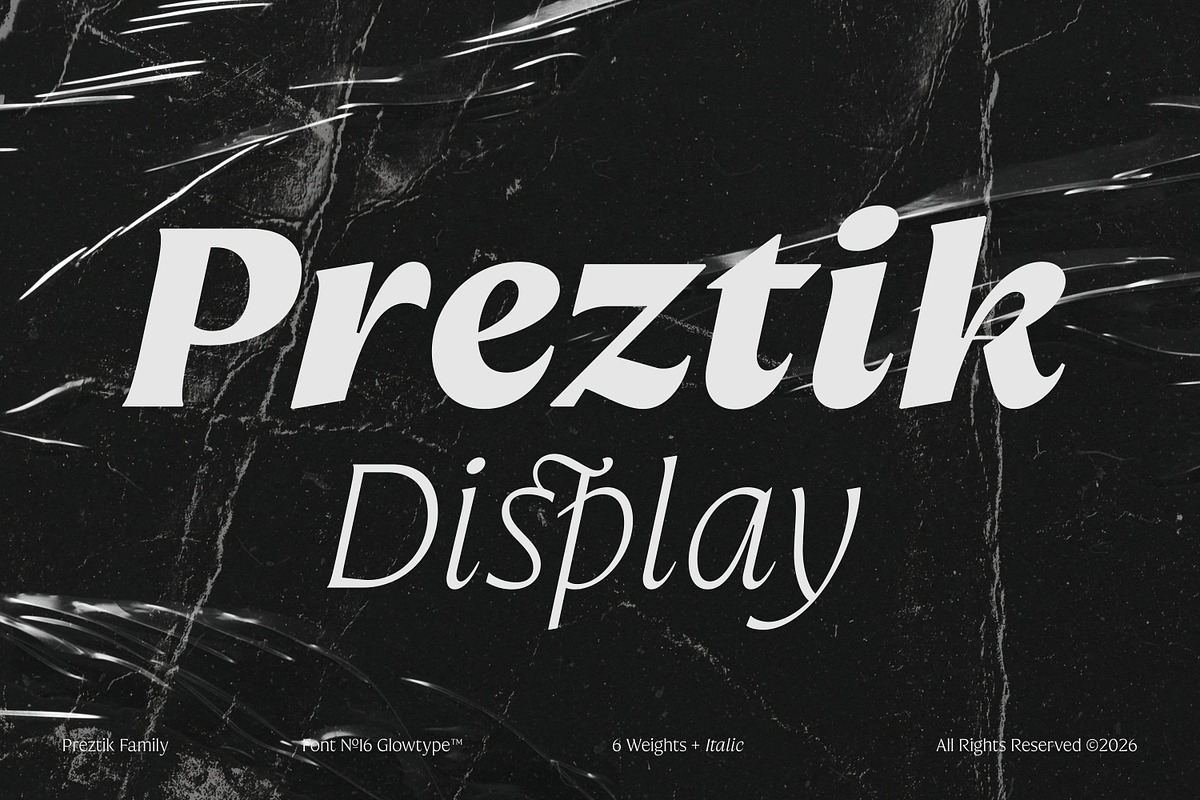
Preztik Display Font Family
Preztik Display Font Family is a premium-quality font developed to enhance your work with a polished, modern, and visually elevated look. Preztik is a contemporary variable display type system built on the idea of readiness. Designed to adapt, respond, and move with intention, Preztik balances classical discipline with modern motion—resulting in a typeface that feels both confident and alive.
Rooted in serif traditions yet shaped for current visual culture, Preztik features controlled contrast, expressive curves, and sharp terminals that bring clarity at text sizes and authority at display scales. Its rhythm is calm but assertive, allowing the type to perform effortlessly across editorial layouts, branding systems, fashion visuals, and cultural graphics.
The variable structure enables seamless transitions across weights, from Extra Light to Black, offering precise typographic control and responsive flexibility. Italics introduce a subtle dynamism, enhancing emphasis without breaking harmony.
Preztik is equipped with a robust OpenType feature set, including standard and discretionary ligatures, case-sensitive forms, fractions, oldstyle figures, numerators and denominators, circled numerals, inferiors and superiors, and a refined closed ampersand—ensuring typographic richness for both expressive and functional use.
More than a display typeface, Preztik is a system designed for who value preparedness, precision, and presence. Always prepared. Always precise.